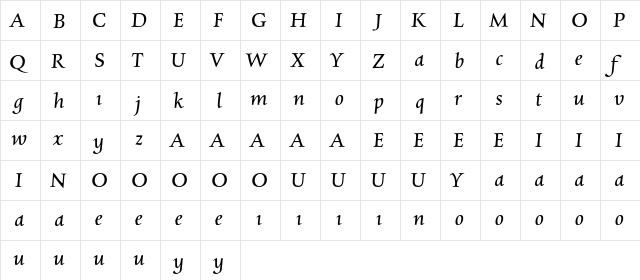
Charpentier Renaissance Pro Italic
| Designer | Ingo Zimmermann |
Design Context for Charpentier Renaissance Pro Typeface
Charpentier Renaissance Pro offers clean, dependable letterforms without strong stylistic allegiance, making it a practical choice for designers who need flexibility. The dynamic lean of this cut emphasises speed and emphasis in any layout.
Pro Tip: Use Charpentier Renaissance Pro for emphasis, pull quotes, and subheadings where its slanted energy can add rhythm to the layout.